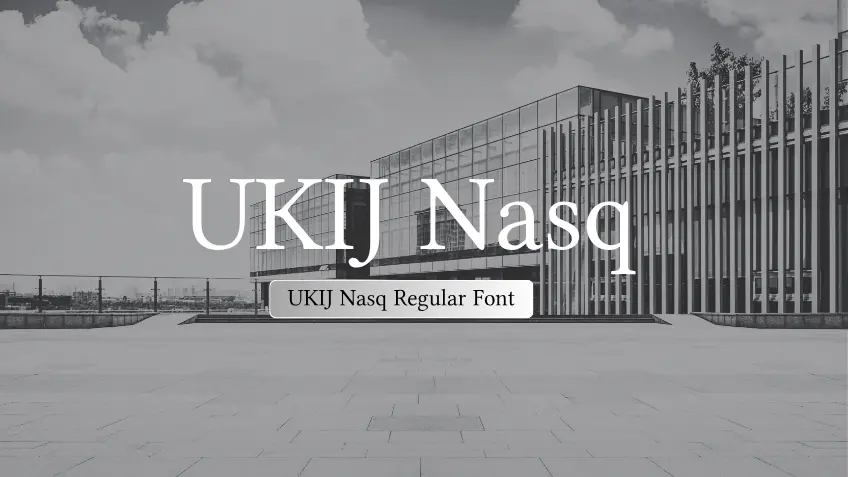
The font UKIJ Nasq Regular, designed by Geyret T. Kenji, falls under the Naskh category & UKIJ Nasq font family. Its smooth, flowing letterforms make it a versatile choice for projects that require both elegance and readability. UKIJ Nasq is particularly well-suited for Body Text, Digital Interfaces, Specialized Publishing and Blog Graphics. With its balance of simplicity and decorative appeal, this font brings a polished touch to both personal and professional designs.